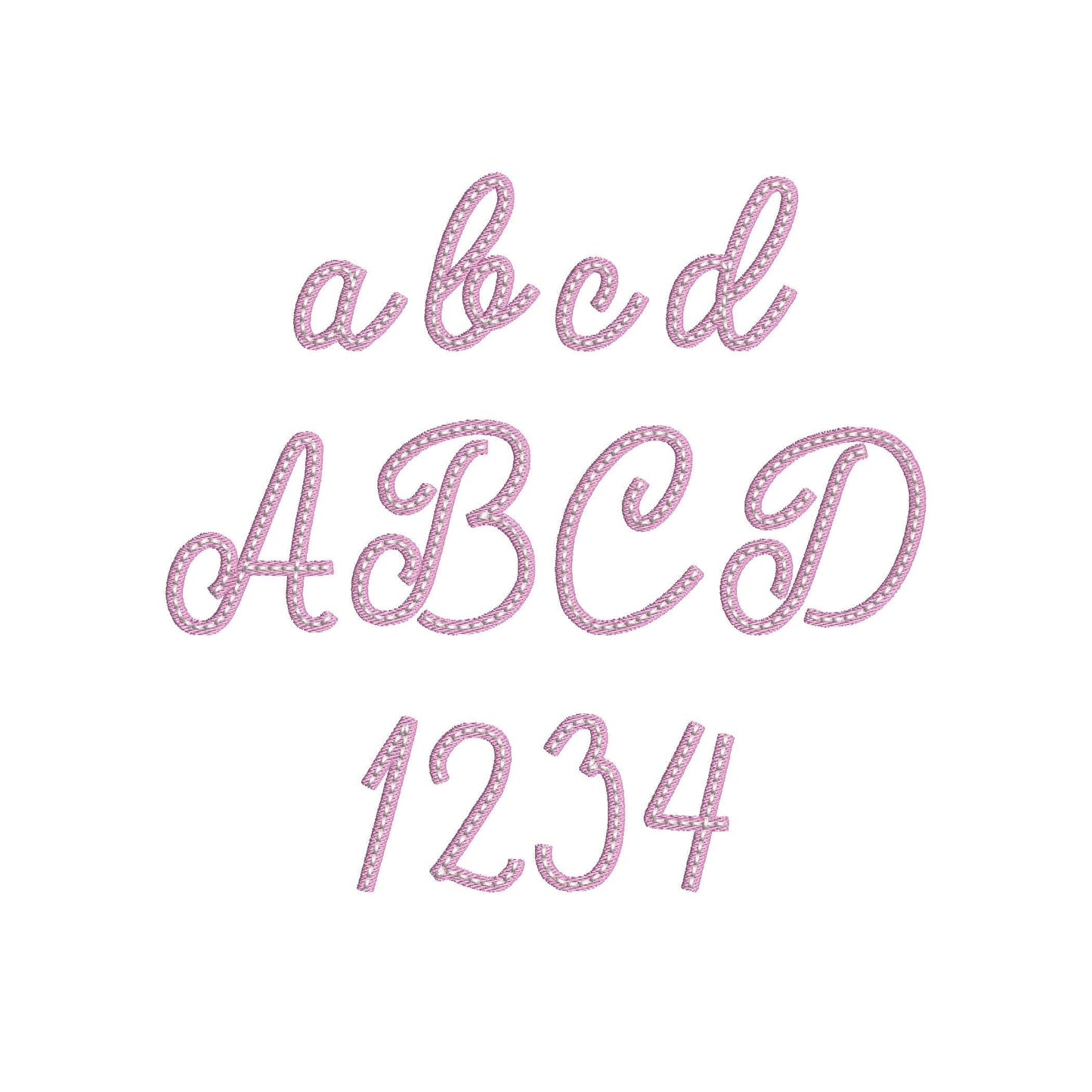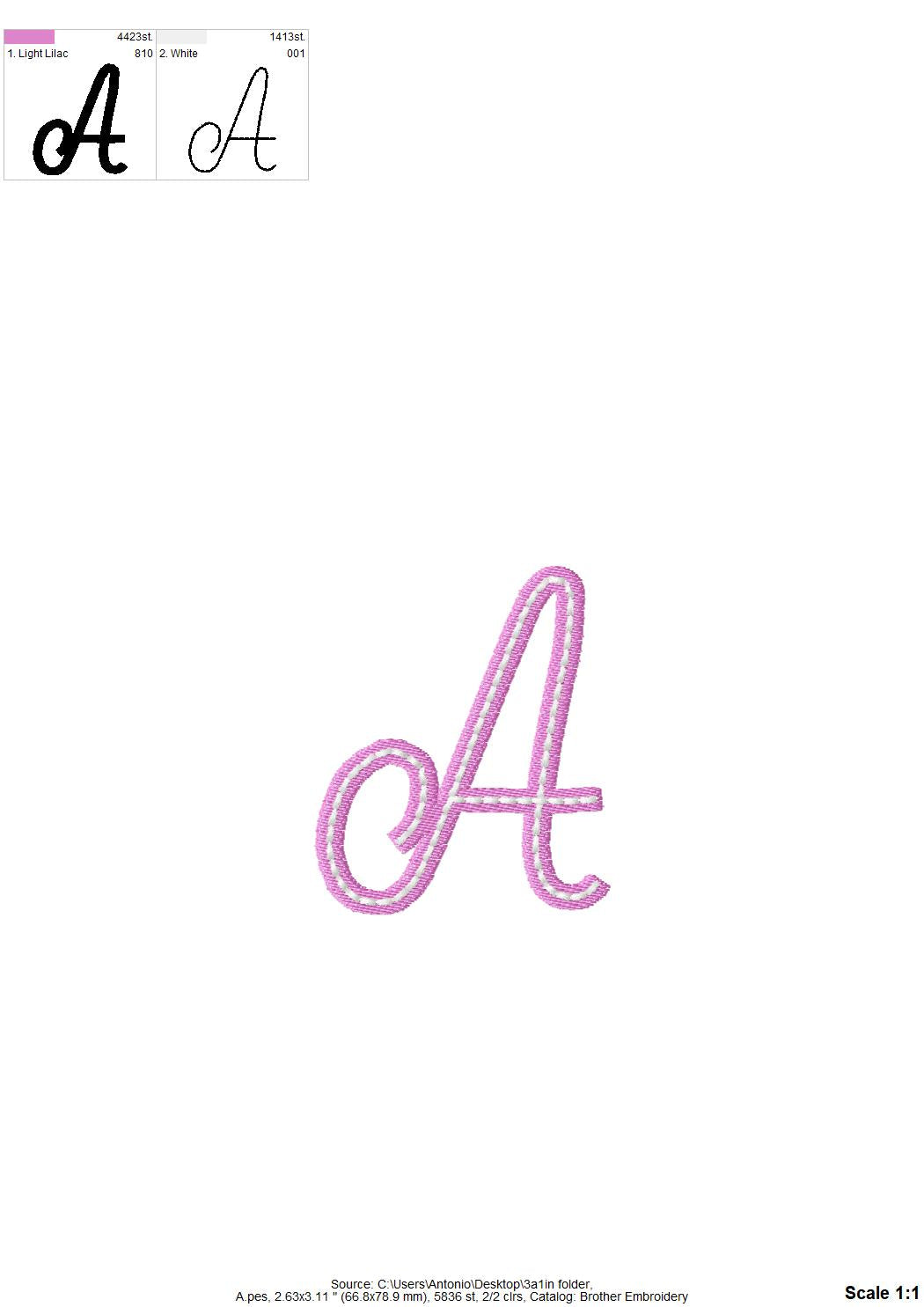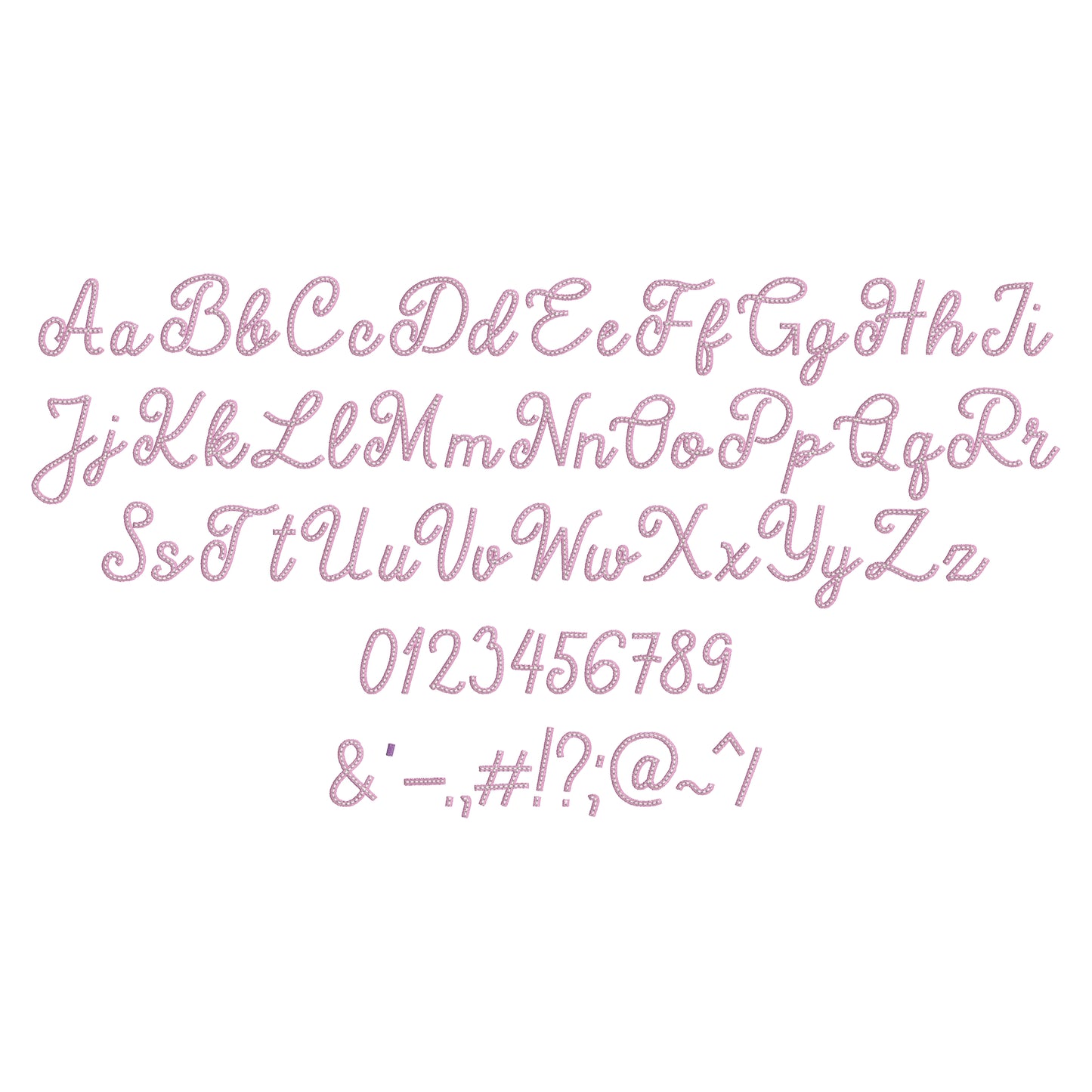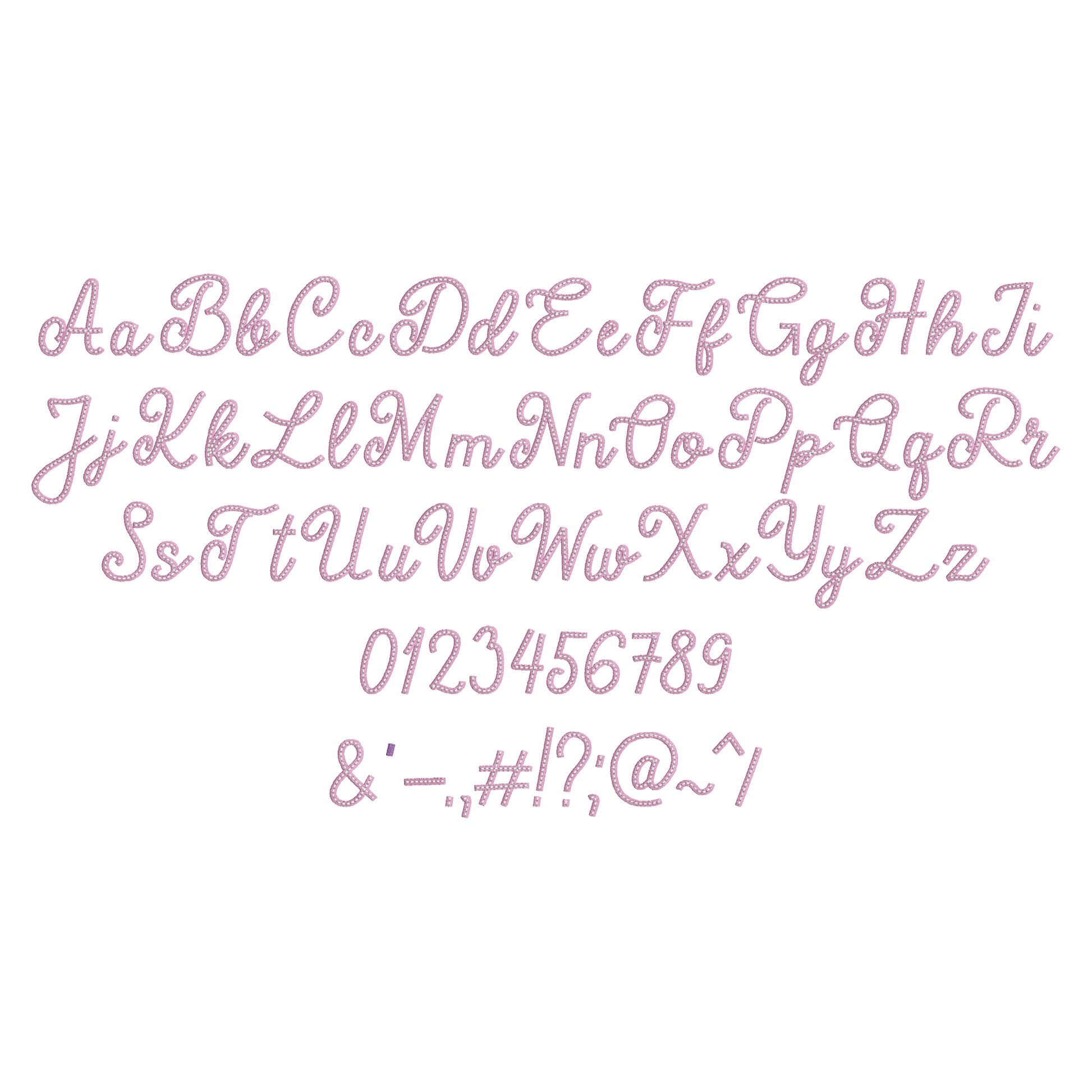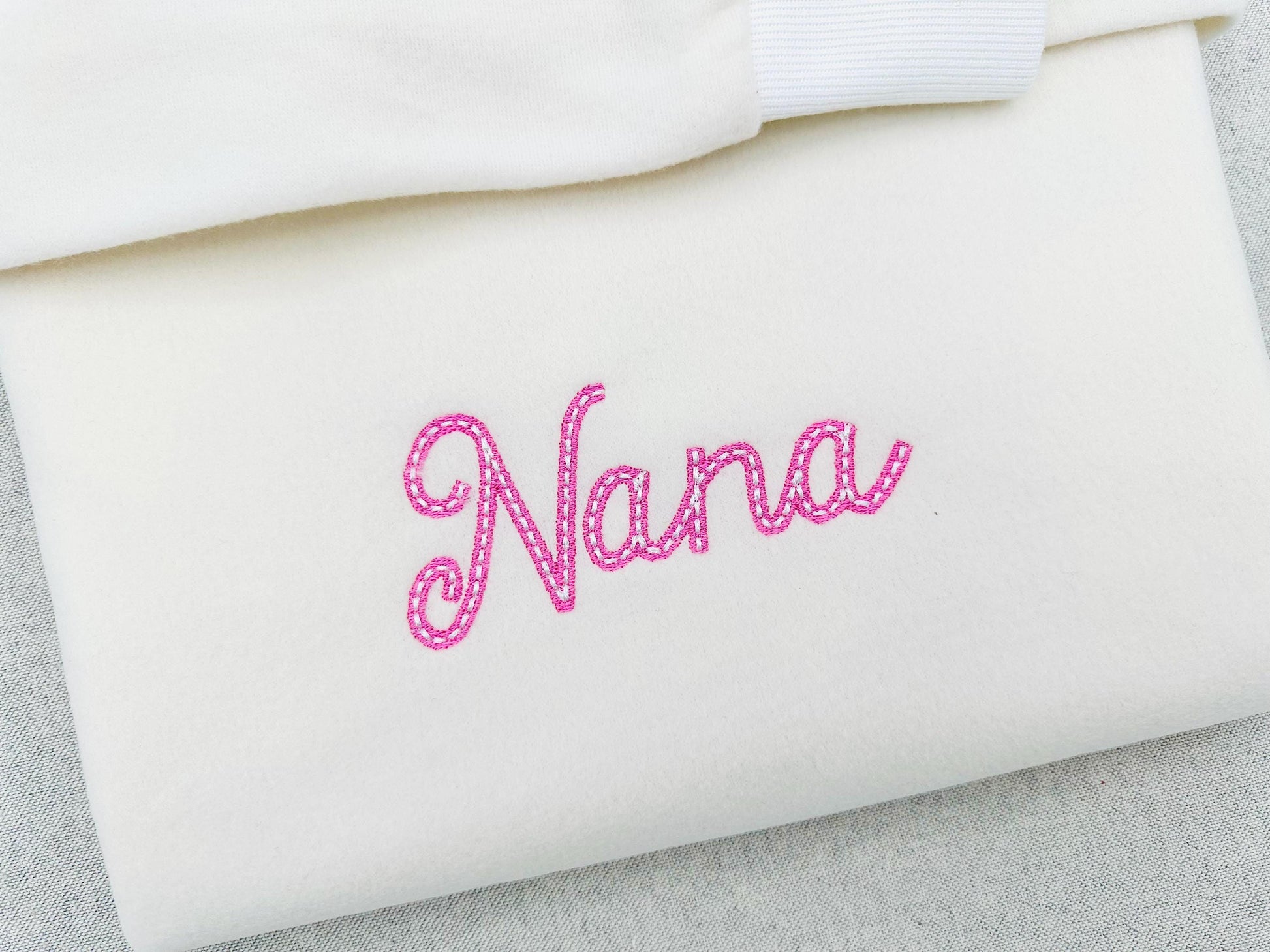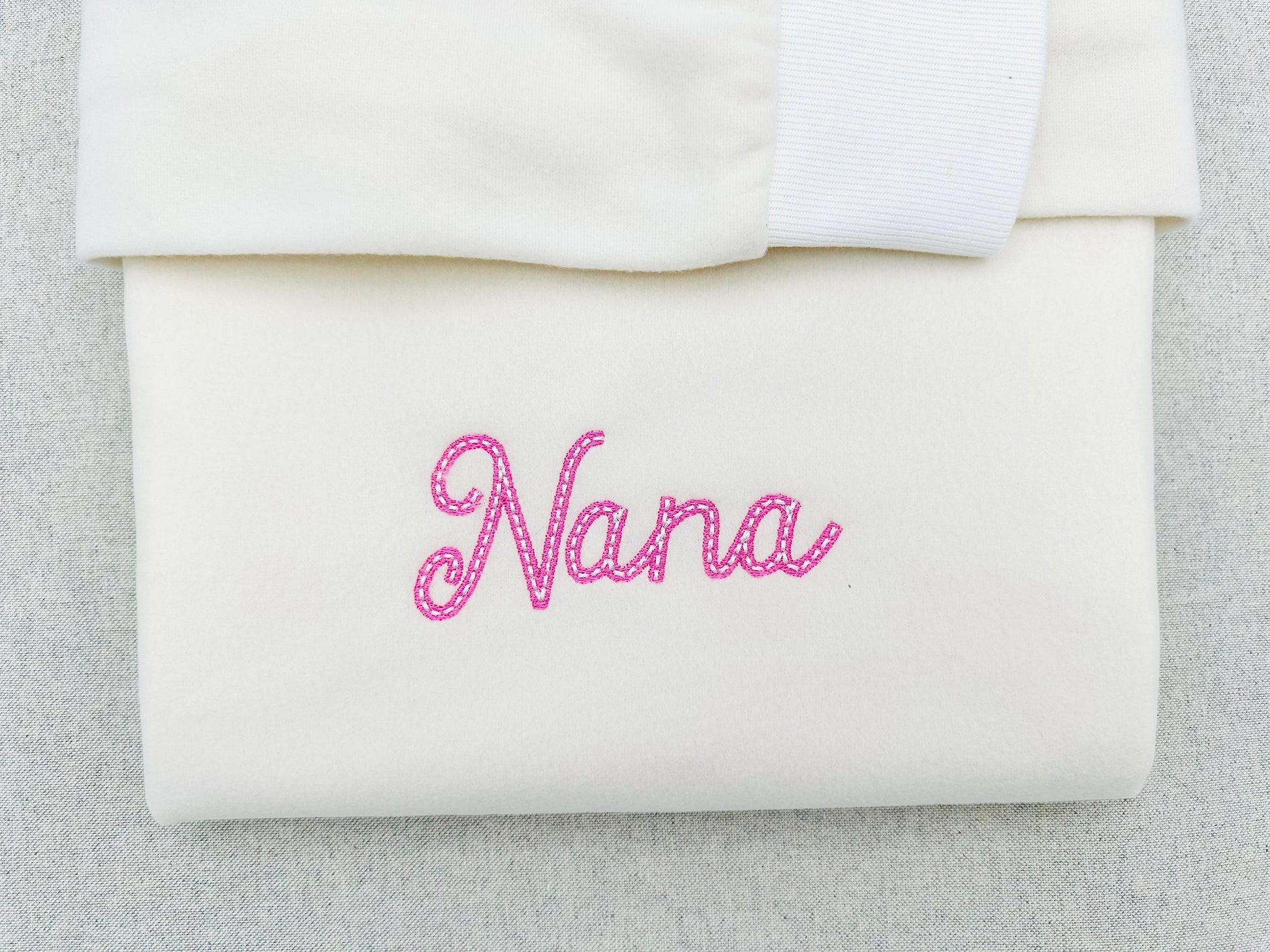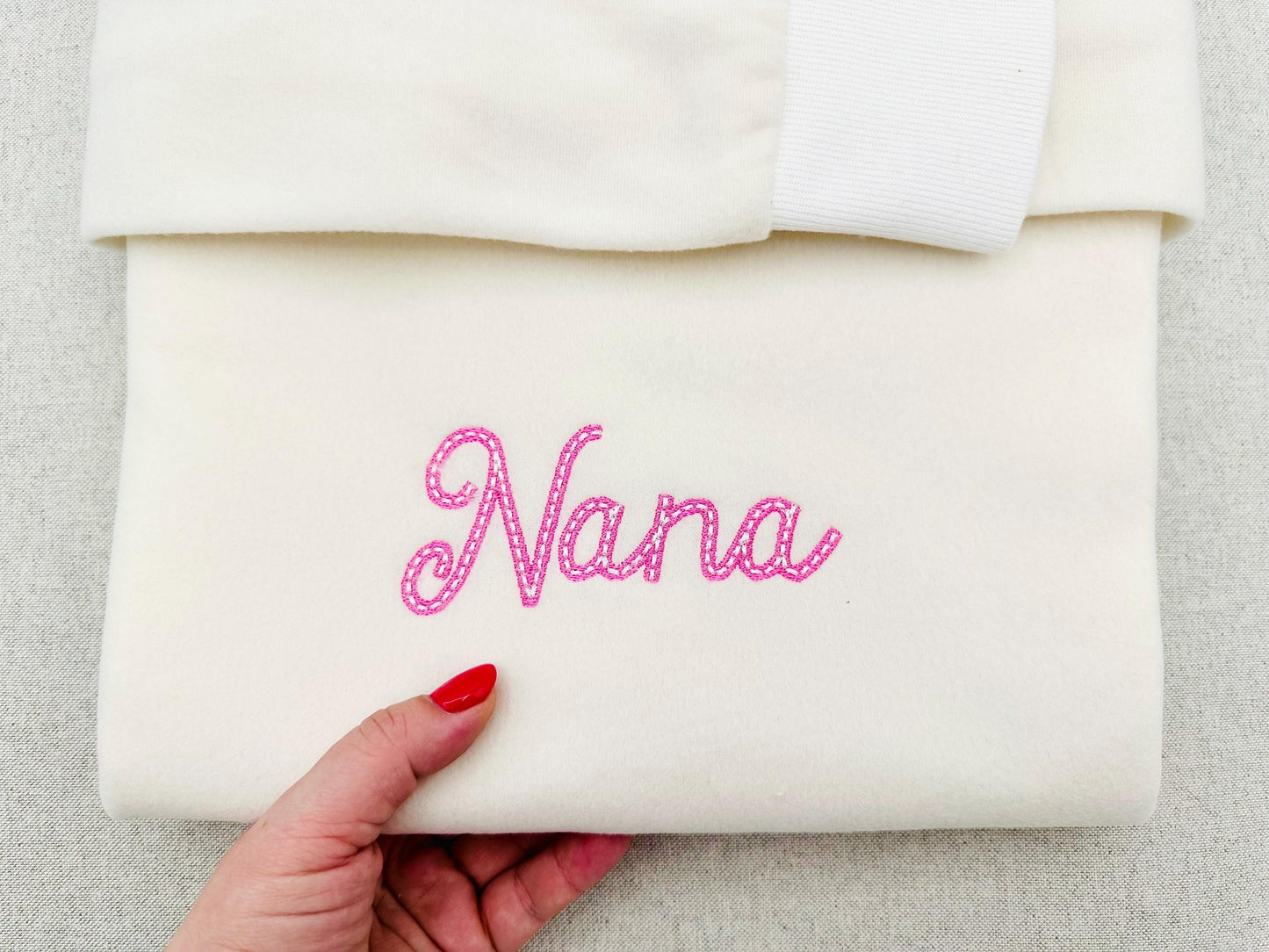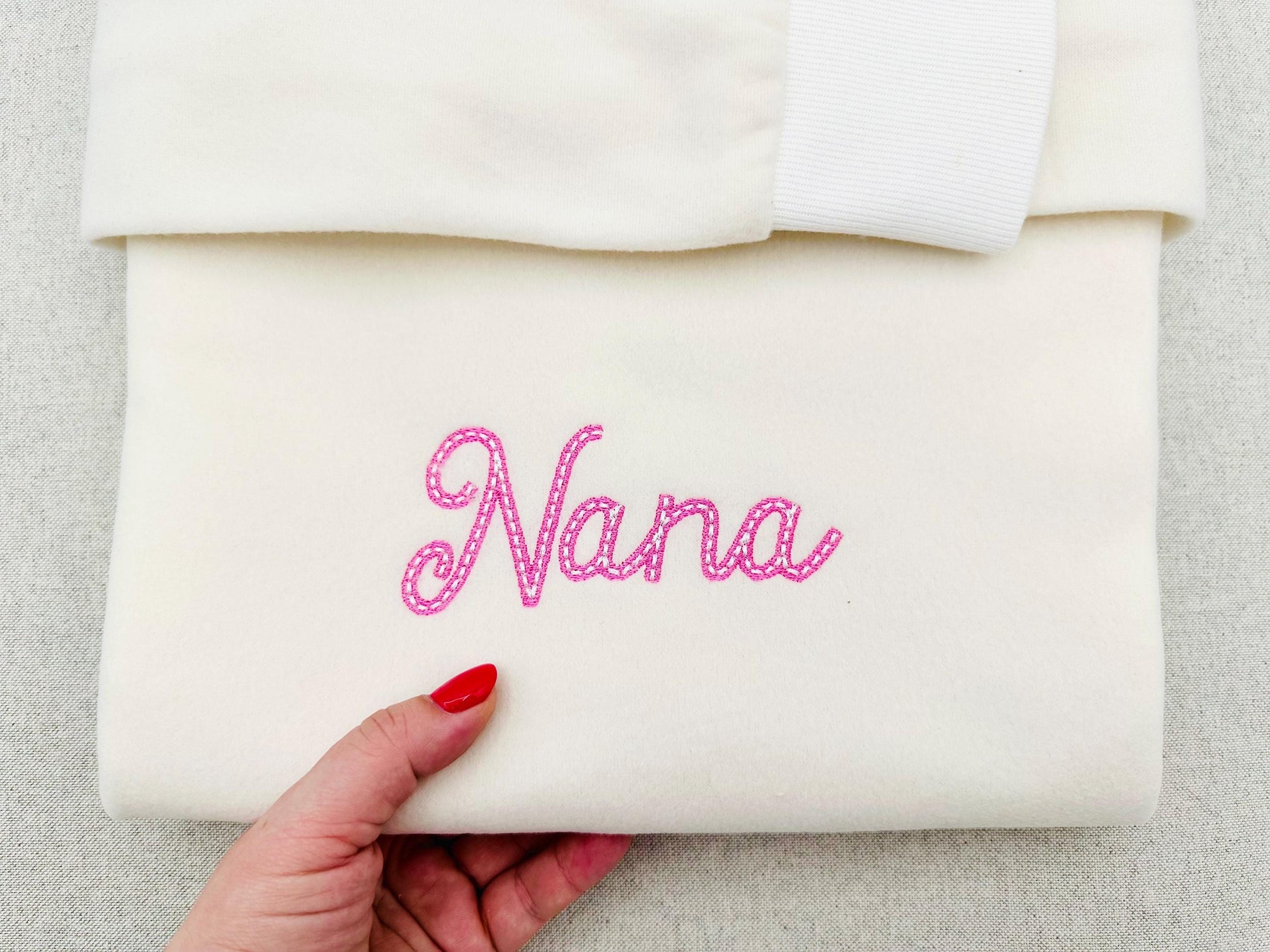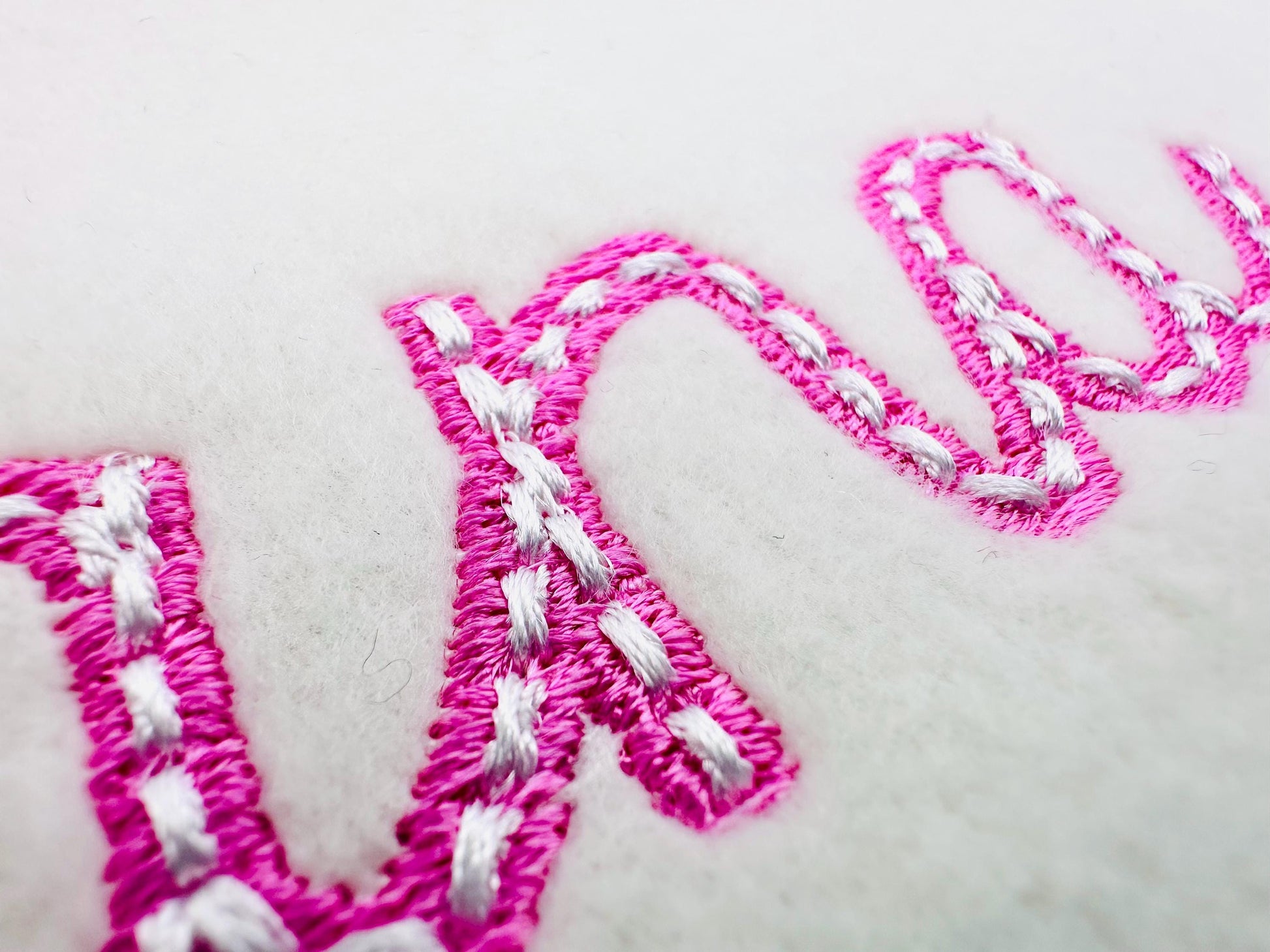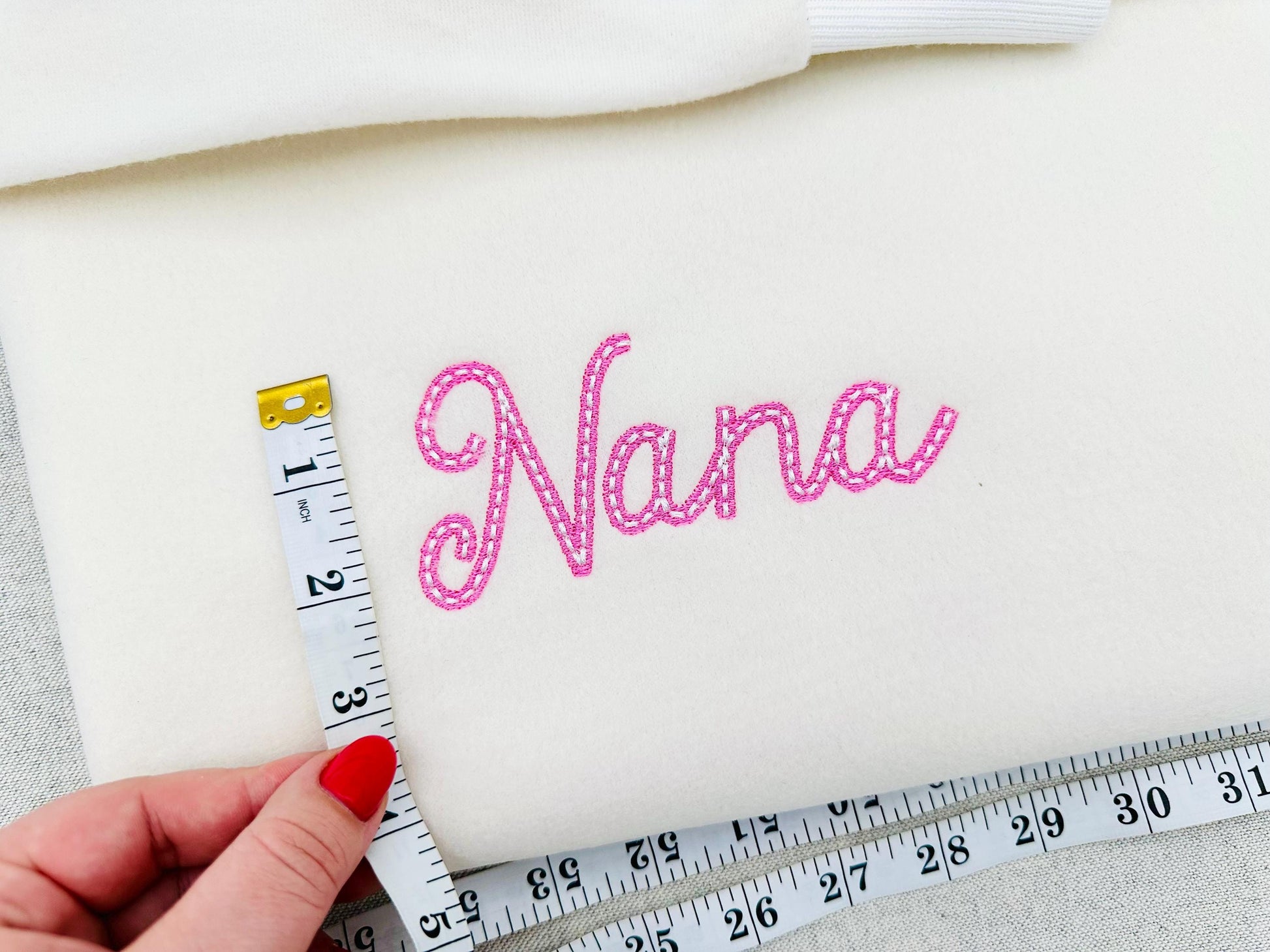
Handwritten script Font Velvet
Or click to open the linkA handwritten script font with a hand-stitched line on top of the fill. Beautiful for monograms, names and words on sweatshirts, pillows, towels and bags.
The letters come in six sizes: 1.7, 2.2, 2.6, 3.1, 3.7 and 4.5 inches. Includes uppercase and lowercase letters, numbers 0-9 and punctuation.
- Velvet script font: uppercase and lowercase letters, numbers 0-9 and punctuation
- 6 letter sizes, 1.7 to 4.5 in